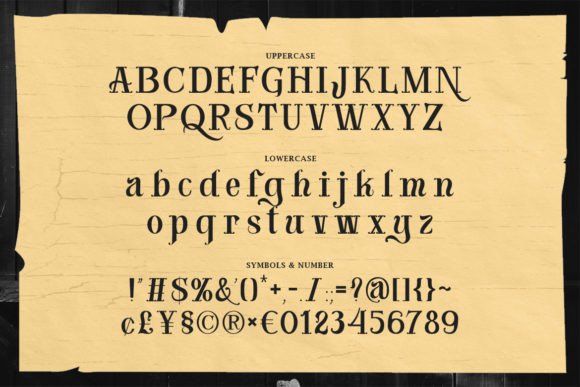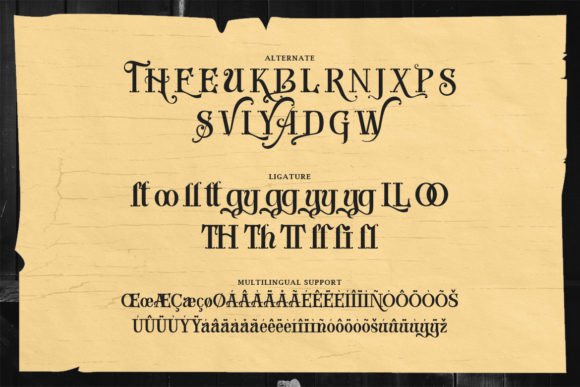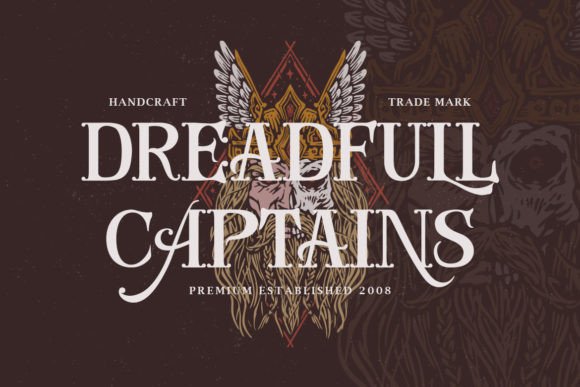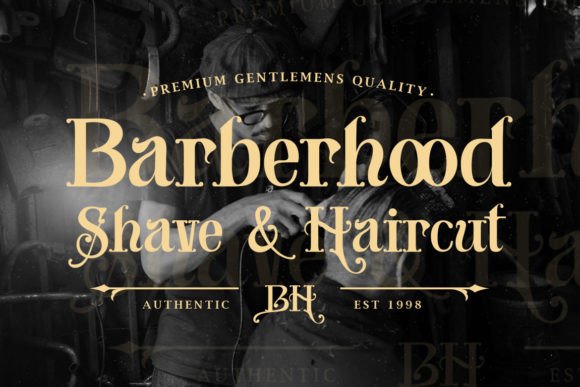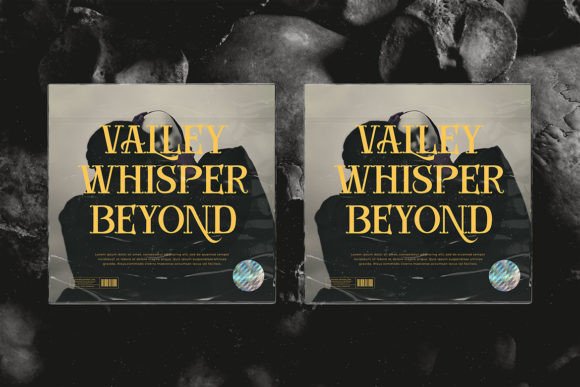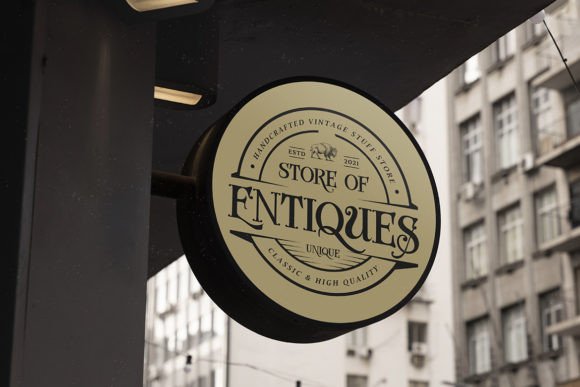
Introducing Black Bellamy Font: Unleash the Swashbuckling Spirit of the High Seas
Are you looking for a font that can add a touch of adventure and ruggedness to your designs? Look no further than Black Bellamy Font, a Pirates display font that embodies the spirit of the high seas. This bold and versatile font is perfect for designers and crafters who want to make a statement with their projects.
The Inspiration Behind Black Bellamy Font
Black Bellamy Font is inspired by the golden age of piracy, when swashbuckling buccaneers ruled the seven seas. The font’s design is reminiscent of the bold and rugged signs that adorned the ships and taverns of the time, evoking a sense of adventure and danger. With its sturdy lines and weathered texture, Black Bellamy Font is the perfect choice for designs that require a touch of pirate flair.
Key Features of Black Bellamy Font
So, what makes Black Bellamy Font so special? Here are just a few of its key features:
- Bold and Rugged Design: Black Bellamy Font features a bold and rugged design that is perfect for making a statement. Its sturdy lines and weathered texture give it a worn and battle-hardened look that’s perfect for designs that need to stand out.
- Versatile and Flexible: Black Bellamy Font is a versatile font that can be used for a wide range of projects, from book covers and posters to branding and packaging.
- Easy to Read: Despite its bold and rugged design, Black Bellamy Font is surprisingly easy to read, making it perfect for use in headlines, titles, and other display text.
Uses for Black Bellamy Font
So, what can you use Black Bellamy Font for? The possibilities are endless! Here are just a few ideas to get you started:
- Book Covers: Add a touch of adventure to your book covers with Black Bellamy Font. Its bold and rugged design is perfect for fiction books, especially those in the adventure, historical, or fantasy genres.
- Posters and Flyers: Create eye-catching posters and flyers with Black Bellamy Font. Its bold design is perfect for advertising events, products, or services that require a touch of excitement and adventure.
- Branding and Packaging: Use Black Bellamy Font to add a touch of pirate flair to your branding and packaging. Its versatile design makes it perfect for use in logos, labels, and other marketing materials.
- Logos and Icons: Create bold and rugged logos and icons with Black Bellamy Font. Its sturdy lines and weathered texture make it perfect for use in designs that require a touch of adventure and danger.
Why Choose Black Bellamy Font?
So, why should you choose Black Bellamy Font for your next project? Here are just a few reasons:
- Unique and Eye-Catching: Black Bellamy Font is a unique and eye-catching font that will set your designs apart from the crowd.
- High-Quality Design: Black Bellamy Font features a high-quality design that is both bold and rugged, making it perfect for use in a wide range of projects.
In conclusion, Black Bellamy Font is a versatile and bold Pirates display font that is perfect for designers and crafters who want to add a touch of adventure and ruggedness to their designs. With its sturdy lines, weathered texture, and easy-to-read design, Black Bellamy Font is the perfect choice for a wide range of projects, from book covers and posters to branding and packaging. So why wait? Download Black Bellamy Font today and unleash the swashbuckling spirit of the high seas on your designs!